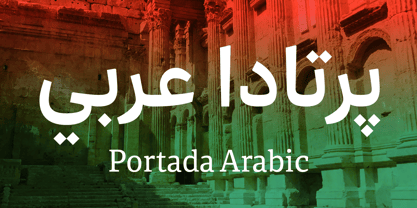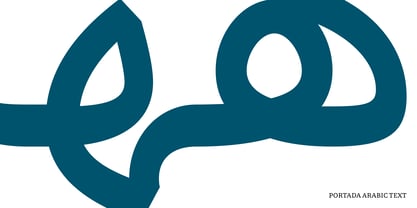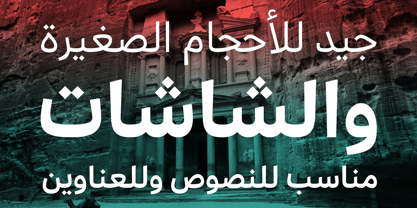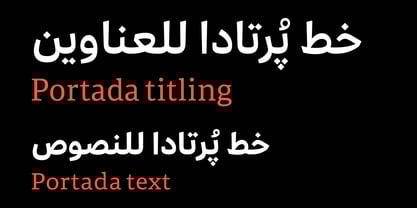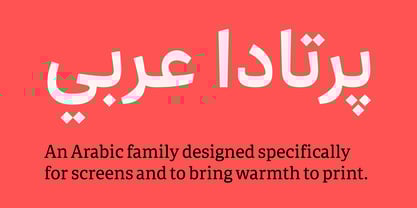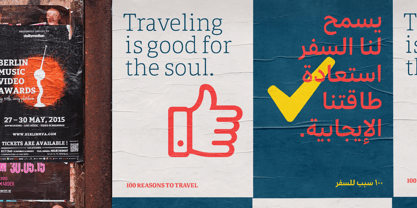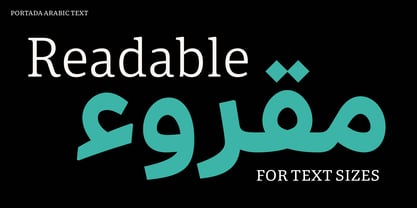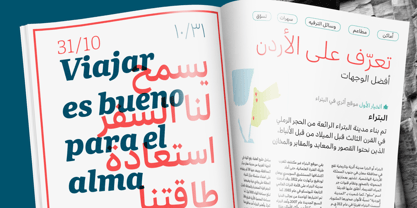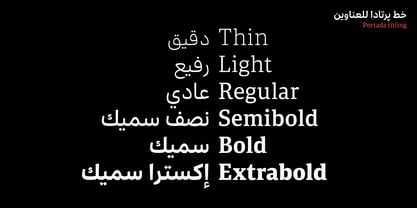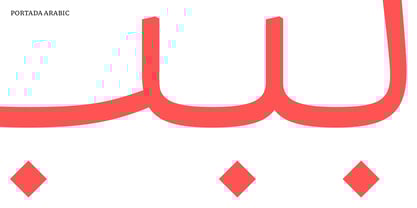
Portada Arabic
by TypeTogether
The Portada Arabic Font Family was designed by Veronika Burian, José Scaglione, Sahar Afshar and published by TypeTogether. Portada Arabic contains 6 styles and family package options. More about this family
For everyone wishing for a modern Arabic typeface that’s clear and readable in restrictive digital environments, meet Portada Arabic by Sahar Afshar. As an expansion of the Portada family, Portada Arabic addresses the main problems of typefaces on screens: font families with a slightly flared structure may appear fickle and unsteady, pixel grids change from one screen dimension to another, and space is always a high concern. So low contrast fonts have become the go-to choice on small screens to save space and carry a modern tone. Portada Arabic now provides a Naskhstyle option for these restrictive digital environments, putting to rest the old idea that screens require low contrast fonts. The screen has met its match.
The unique Portada Arabic was created from and for the digital world — from e-ink or harsh grids to Retina capability — and these properties are also what makes it warm in printed formats. Portada Arabic’s text and display styles were engineered from the Naskh style for superlative performance to make great use of balanced letterforms, ample character height, clear interior negative space, and its subservient personality. After all, legibility always takes priority in text.
The Portada Arabic family is made of four text styles, six display styles, two icon sets, and comes in two variable fonts. The text styles have more generous spacing and less contrast than the display; when printed, these details bring warmth to paragraphs. Portada Arabic’s display styles enact slight changes while reducing the individual width of each character and keeping the internal space clear, all to retain their digital clarity. As a free download, the exhaustive set of dark and light icons are designed to maintain Portada Arabic’s consistent presence in modern communication and apps, whether as a word or an image.
In addition to the rest of the multiscript Portada family, Portada Arabic also supports Persian, Urdu, Dari, Aimaq, Dehwari, Talysh, and Qashqa’i. Digital magazines, printed newspapers, your favourite novel, and all forms of continuous screen reading benefit from Portada Arabic’s features. This family also covers many of the needs developers have: user interface, showing data intensive apps on screen, even one word directives and dialogs. Portada Arabic is a rare Arabic typeface made to be applied across printed material and the digital world, and especially for extensive, clear screen use.
Designers: Veronika Burian, José Scaglione, Sahar Afshar
Foundry: TypeTogether
Portada Arabic